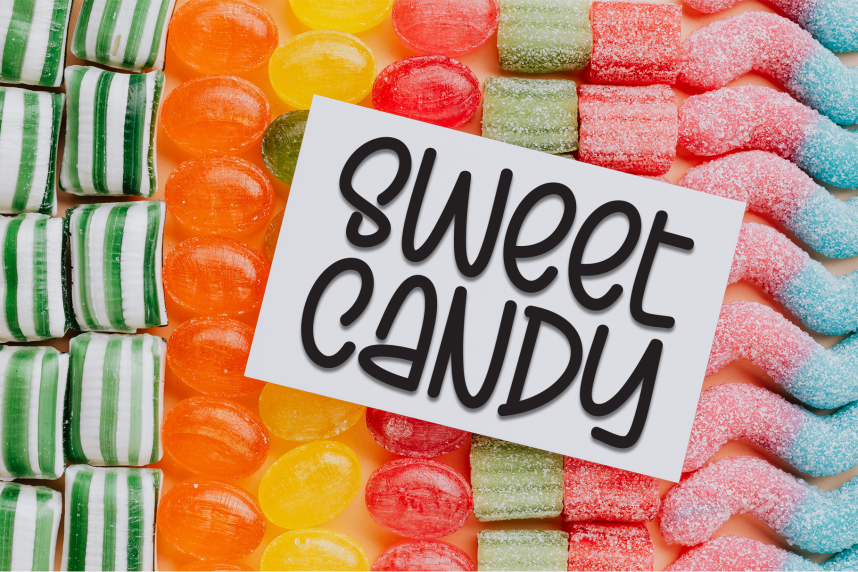
Outside Modern – Playful Style Font
Outside Modern – Playful Style Font is a sweet and friendly handwritten display font. Cute and fun, this font is ideal for writing wedding invitations, cards, or any other design that might need a playful touch!